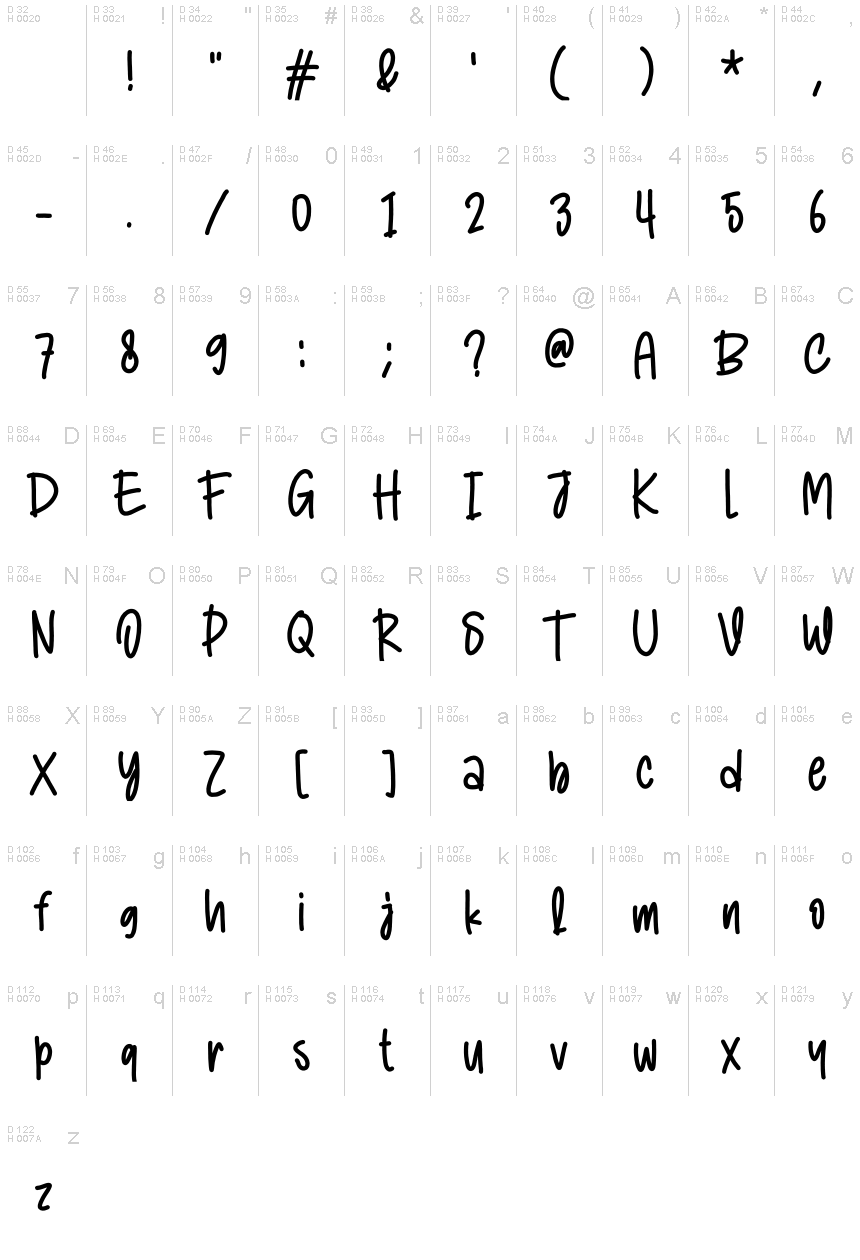
Children Writing
Children Writing is a charming handwritten font created by designer Andi Moz. This condensed typeface exudes a sweet, playful energy, with its whimsical letterforms and expressive brushstrokes. The font's organic, freehand quality lends it a heartfelt, personal feel, making it a delightful choice for designs seeking a touch of youthful, handcrafted appeal.
This versatile font can elevate a wide range of creative projects, from wedding invitations and greeting cards to product packaging and editorial layouts. Its condensed width allows for excellent text flow and readability, while the font's friendly, approachable aesthetic makes it an ideal selection for designs that require a warm, inviting tone.